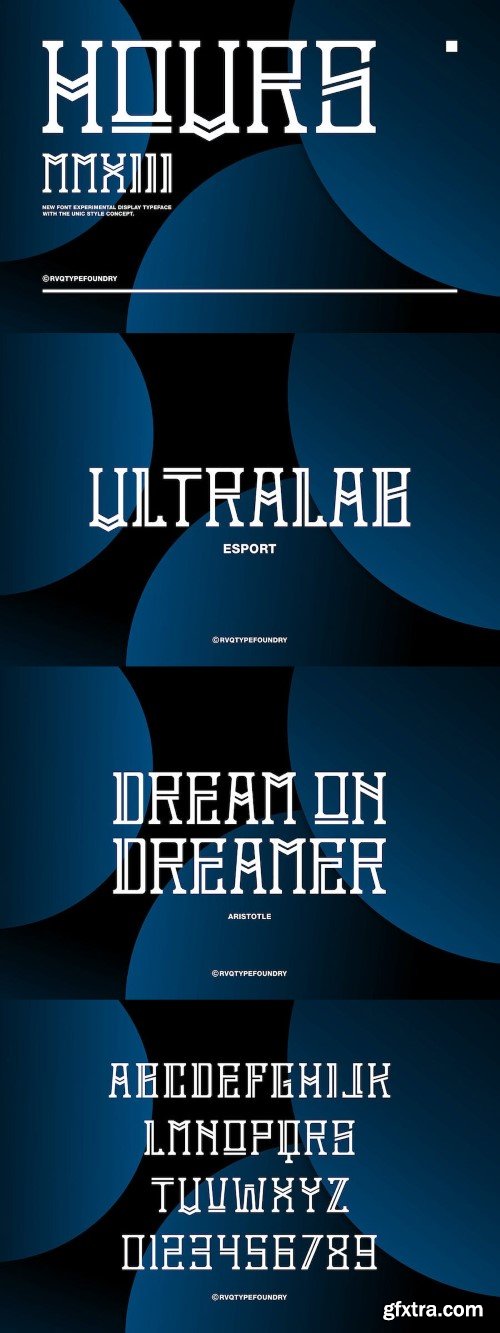
小时显示字体
The Hours display typeface is new font from Rvq Typefoundry, elegant feel character set. To create the beautiful combination, just mix the uppercase and lowercase. The Hours display includes a full set of capital and lowercase letters, as well as multi-lingual support, currency figures, numerals, punctuation & some extra glyphs.